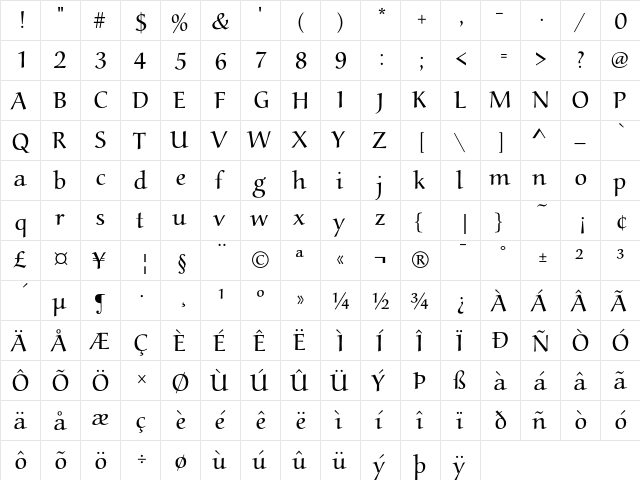
AlcuinEF Light Font Preview
AlcuinEF Light
Design Context for AlcuinEF Typeface
AlcuinEF takes a measured approach to typography — its balanced proportions and neutral character make it a reliable workhorse for both digital and print work. The delicate stroke weight brings airiness and refinement to layouts.
Pro Tip: Use AlcuinEF in both headline and body roles to test its range before committing to a single application.